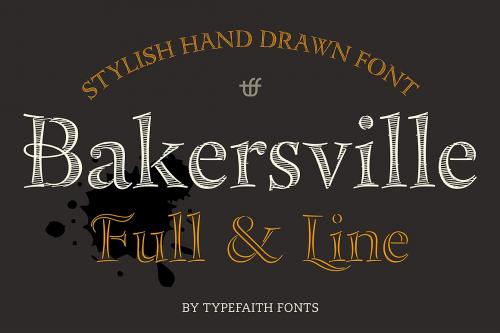
Bakersville is a package of 2 hand drawn sketch fonts by TypeFaith Fonts. The fonts are very useable for food packaging, menu’s, etc and gives your product the authentic hand made look.